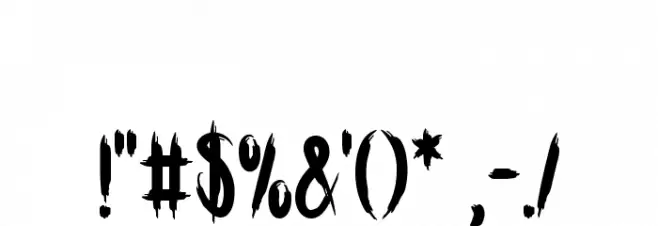
Ghostly Whispers Font
Ghostly Whispers Description
This font exudes a haunting and eerie vibe, characterized by its jagged and irregular strokes that mimic the appearance of dripping ink or ghostly whispers. The uppercase and lowercase letters maintain a consistent style, with each character featuring sharp, pointed edges and a slightly distorted form. The numerals and special characters follow the same unsettling aesthetic, making the font ideal for creating a spooky atmosphere. Its unique design is perfect for Halloween-themed projects or any creative work that requires a touch of the supernatural.
Use CaseHeadlines, Posters, Themed Events
Proposed ProjectsIdeal for Halloween invitations, horror movie posters, haunted house flyers, and spooky-themed merchandise.